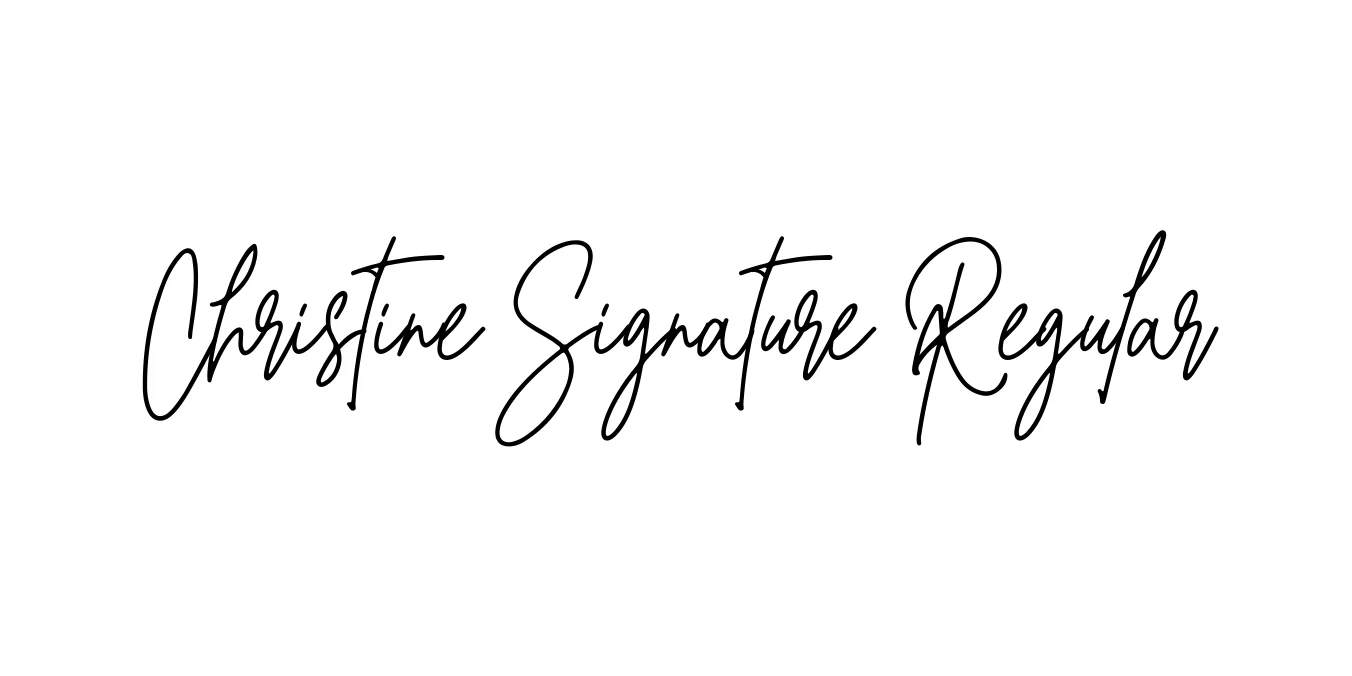
Christine Signature Regular
Designed by Creatype Studio
Christine Signature Regular is a sophisticated and elegant script font designed to mimic natural handwriting. Its fluid strokes and refined curves make it an ideal choice for projects that require a touch of luxury and personalization. Developed by Creatype Studio, this typeface captures the essence of high-end calligraphy, blending traditional styles with a modern, clean finish.
This font is particularly popular in the world of branding and social media. Its versatile nature allows it to shine in both digital and print media, providing a seamless flow that enhances readability without sacrificing artistic flair. Whether used for wedding invitations, logo design, or professional watermarks, Christine Signature Regular offers a timeless appeal that elevates any creative composition.
Christine Signature Regular Best Uses
Perfect for high-end fashion or beauty brand logos that need a personal touch.
Ideal for wedding invitations, RSVP cards, and personalized greeting cards.
Excellent for creating elegant watermarks and professional signatures on photos.
Great for lifestyle quotes, Instagram stories, and feminine blog headers.